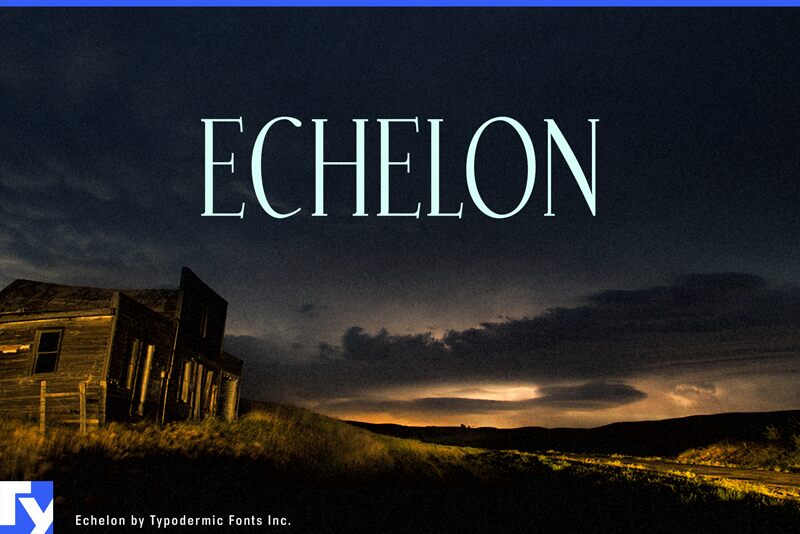
Echelon by Ray Larabie of Typodermic Fonts Inc. is a free high-contrast serif font with exceptionally tall, narrow proportions. Its hairline strokes meet broad verticals in dramatic fashion, and many letters finish in long, taut curves. The overall silhouette is poised and unmistakably elegant.
Fashion photography and slender architectural imagery echo its elongated shapes, making it well suited to magazine covers and luxury campaigns. Perfume packaging is another convincing setting because the fine details suggest delicacy without looking fragile. In event posters, the lettering can become part of a decorative frame or monogram rather than serving as neutral text.
Echelon was created in late 1999 using vector-editing software on a Palm computer. To the creator’s recollection, it is the only font they designed using software other than Fontographer or FontLab. Almost all of Echelon’s characters were developed during a return flight between Toronto and Seattle. The creator entered it into a font contest and won FontLab, which they still use. Echelon was later revised to support more languages and include additional punctuation and mathematical symbols. It remains free.